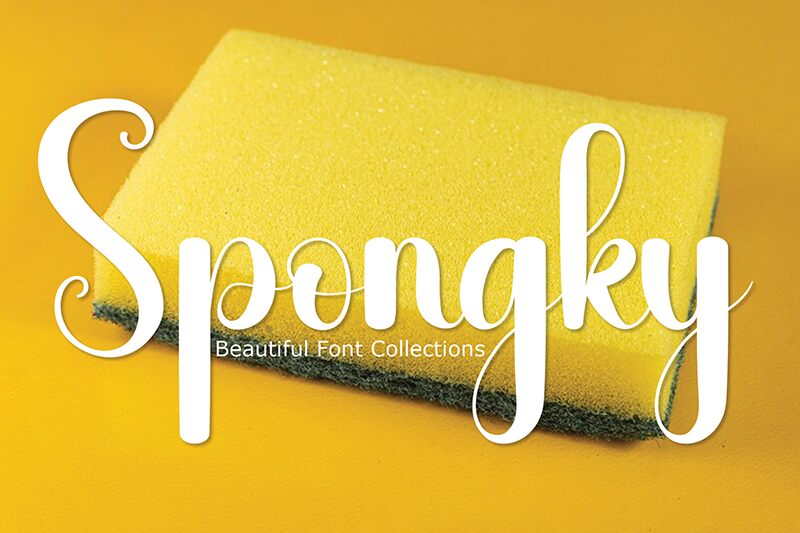
Spongky
Spongky font by Andi Moz is a smooth brush handwriting font with a condensed width. Its genuine strokes possess an attractive vintage charm and elegant style which readers find pleasant to watch and follow. Full of energy and fun, Spongky is meant for all those projects that require some style and sophistication. It’s expressive in several ways with swash endings being just one technique to make logotypes stand out.
Create packaging designs, business invitations, greeting cards, wall quotes, magazine covers, social media posts, advertisements banners or game interfaces – all using this lovely font!